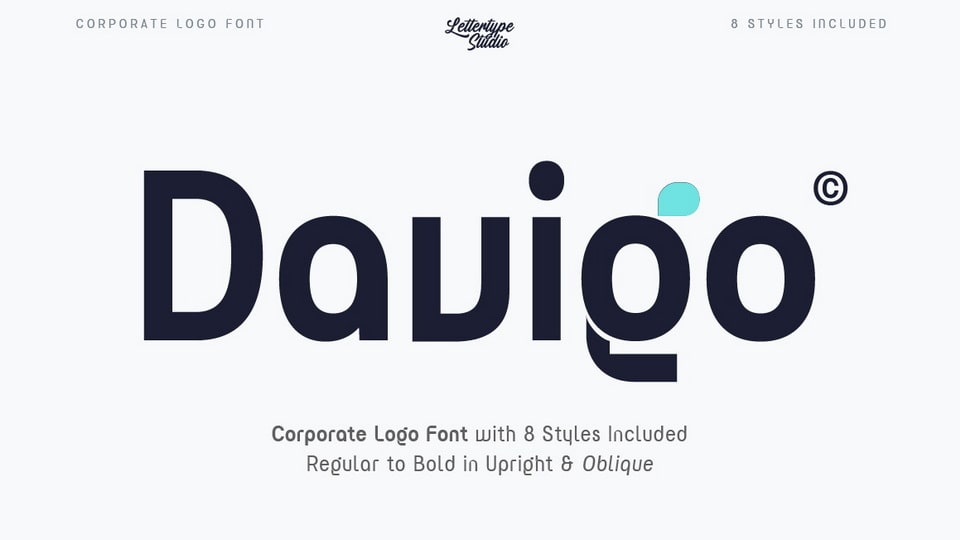
Download Davigo font, a clean, versatile geometric sans-serif typeface that brings professionalism and clarity to your design projects, inspired by modern business culture and global branding standards.
Designer: Lettertype Studio